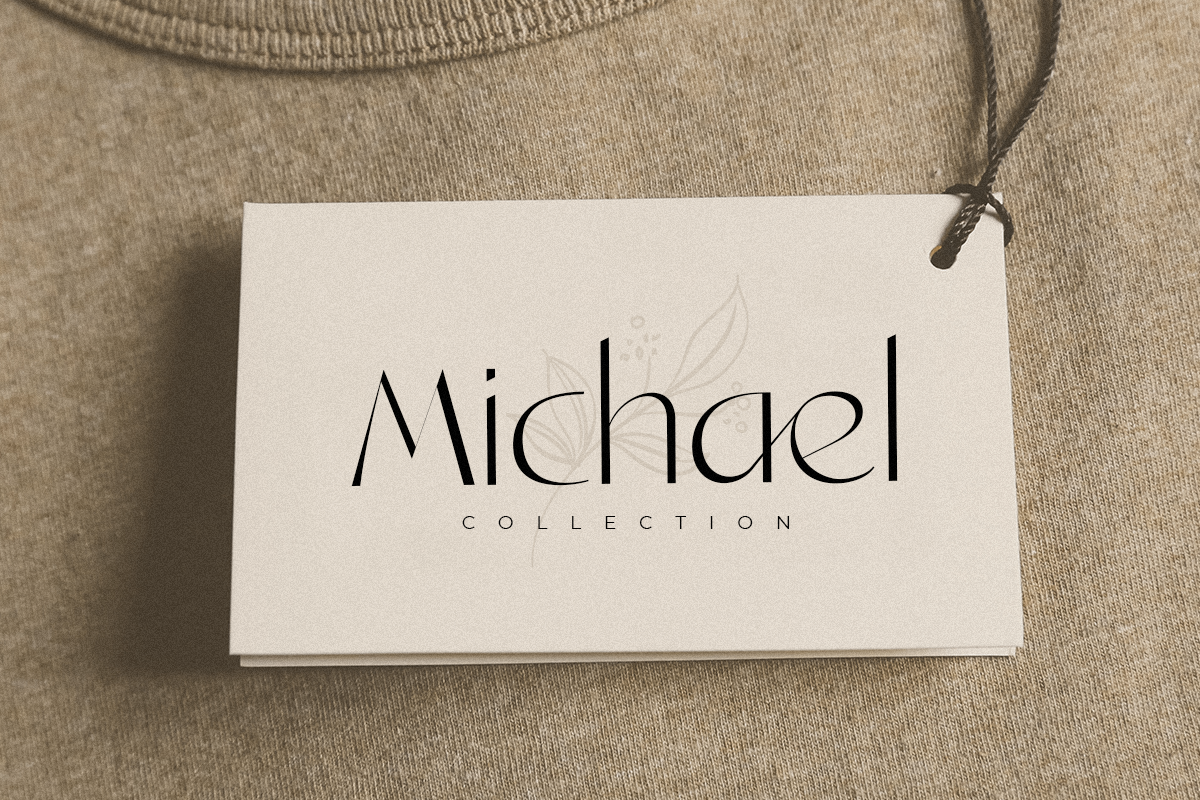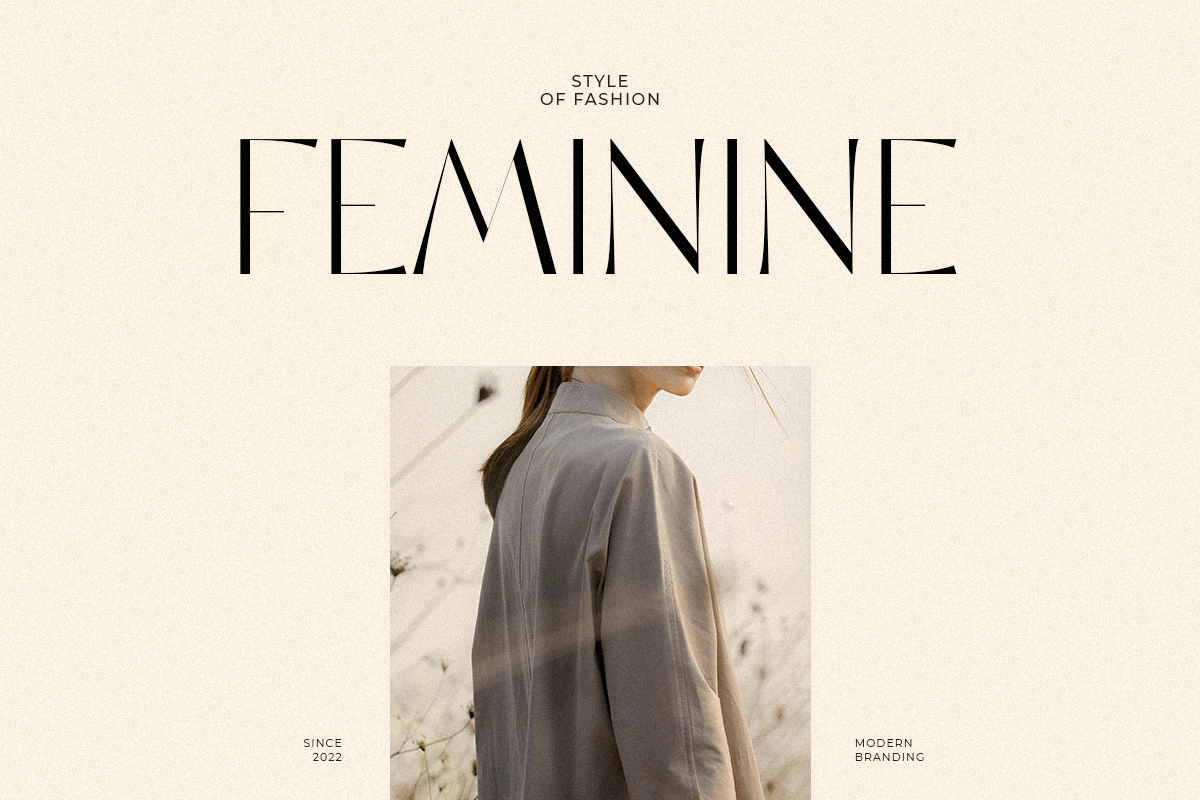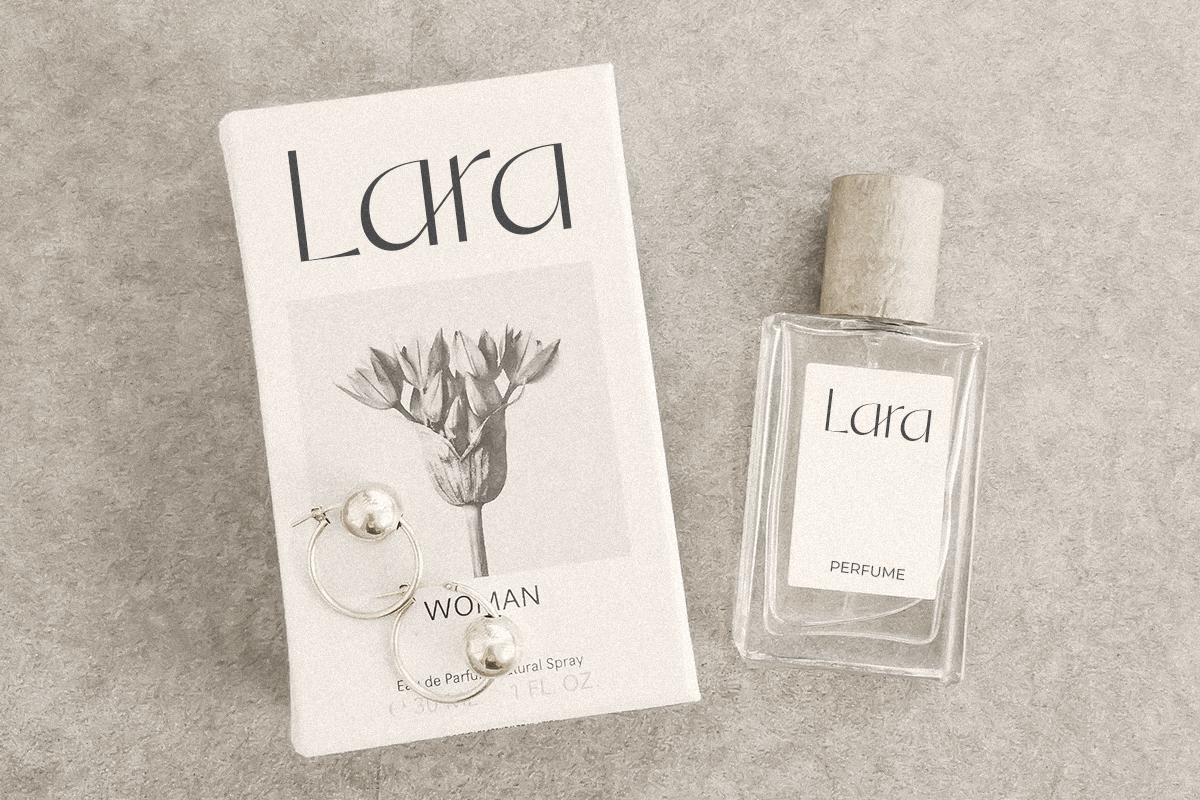
Santiago – Modern Chic Stylish Font. A modern font that we create with unique shape and any creative ligature perfect for branding or logotype design. It’s so nice to leverage designer or product owner that need solutions to make their design look more stylish and modern. And specially for Santiago font, We prepared any ligatures, and any alternate characters to help you create unlimited variations for your creative needs.
Santiago Modern Chic Stylish Font ready with:
- Any options to get creative variations (combination of Alternate and Ligatures)
- Ready with Lowercase and Uppercase characters